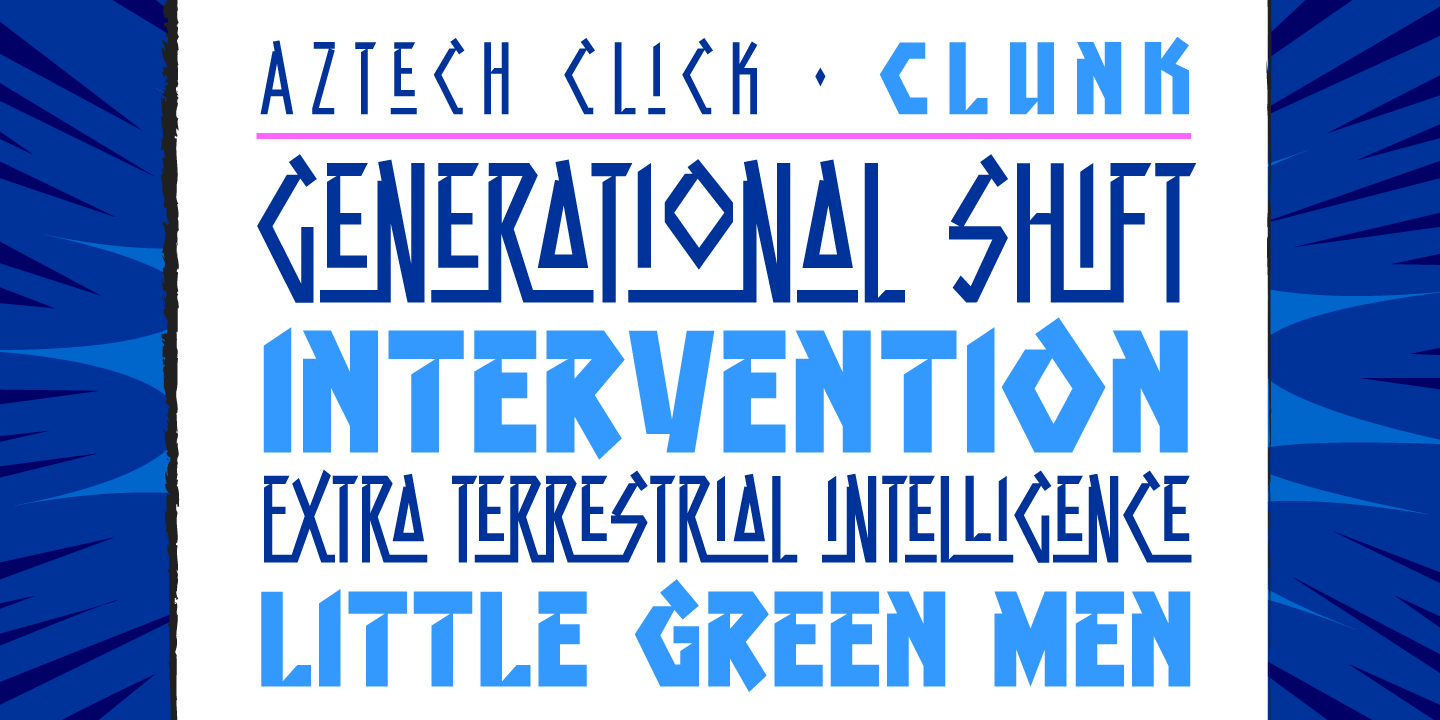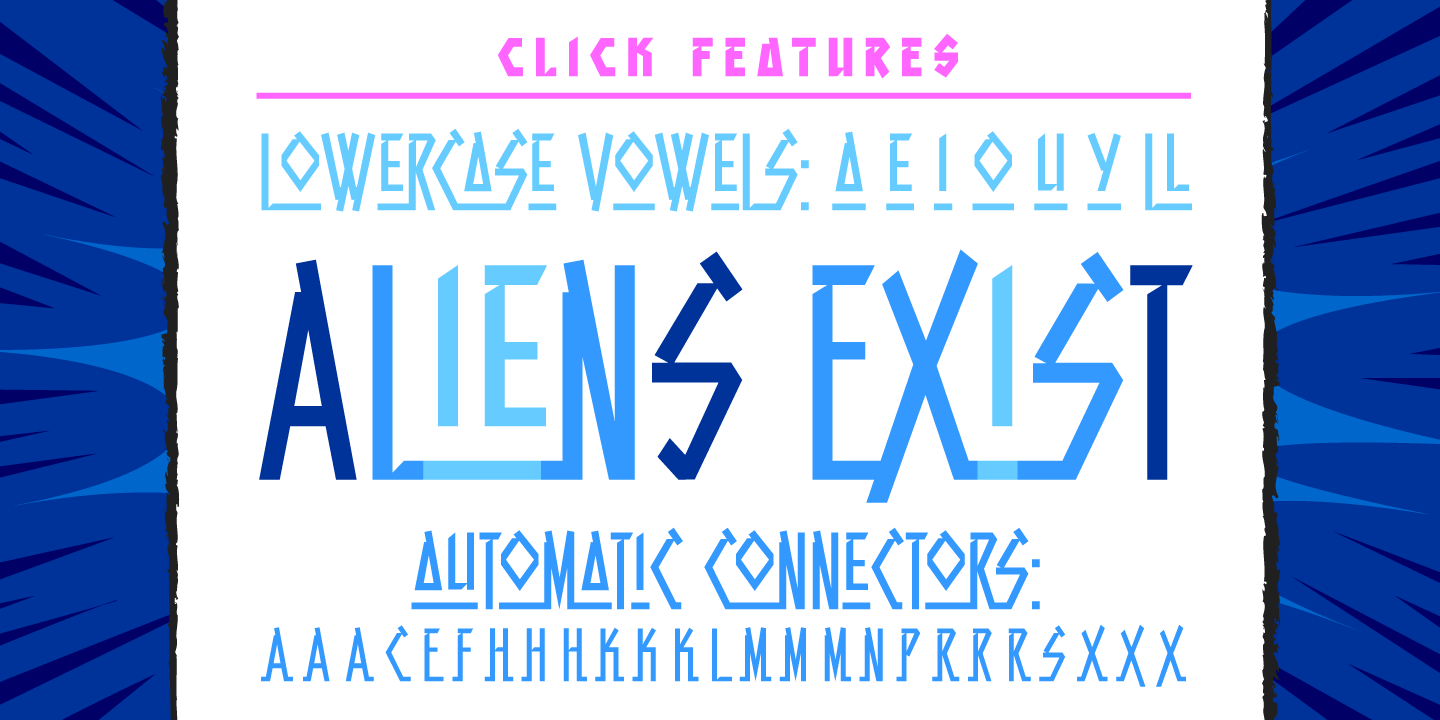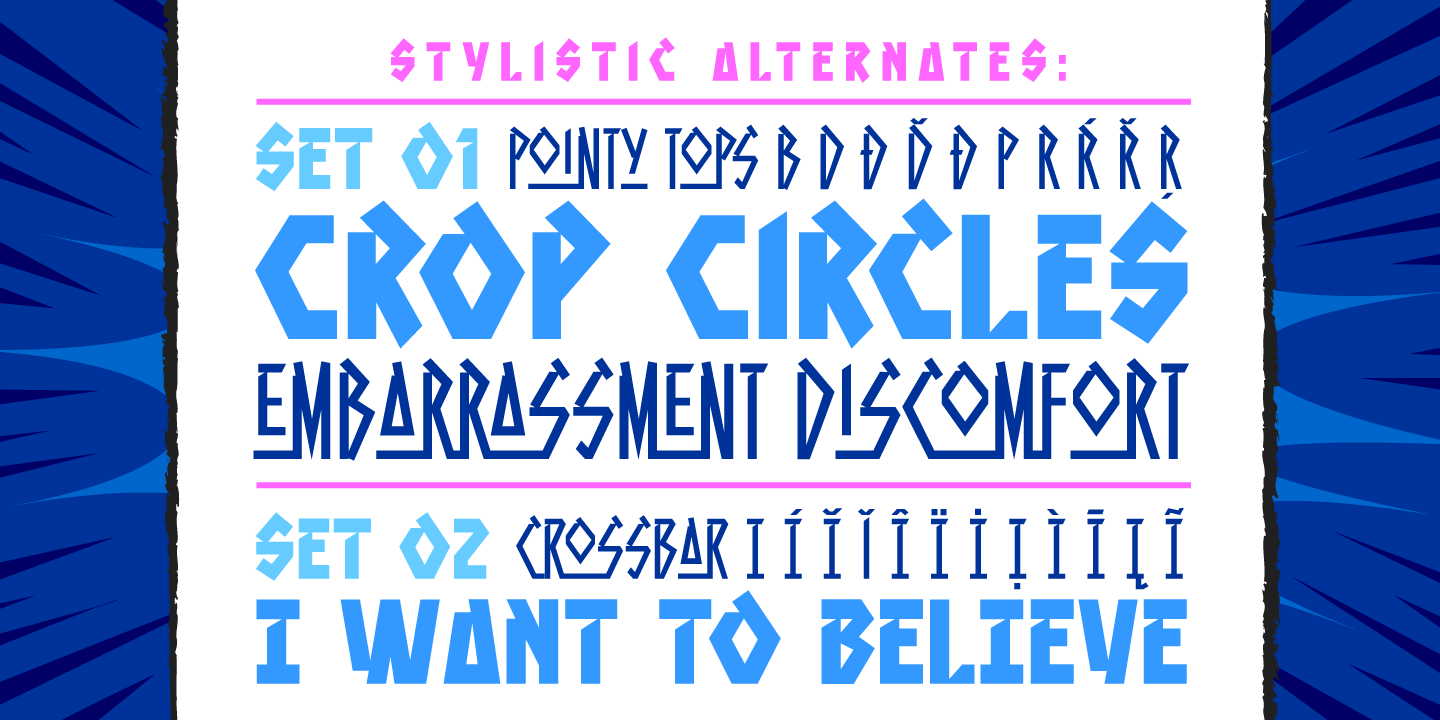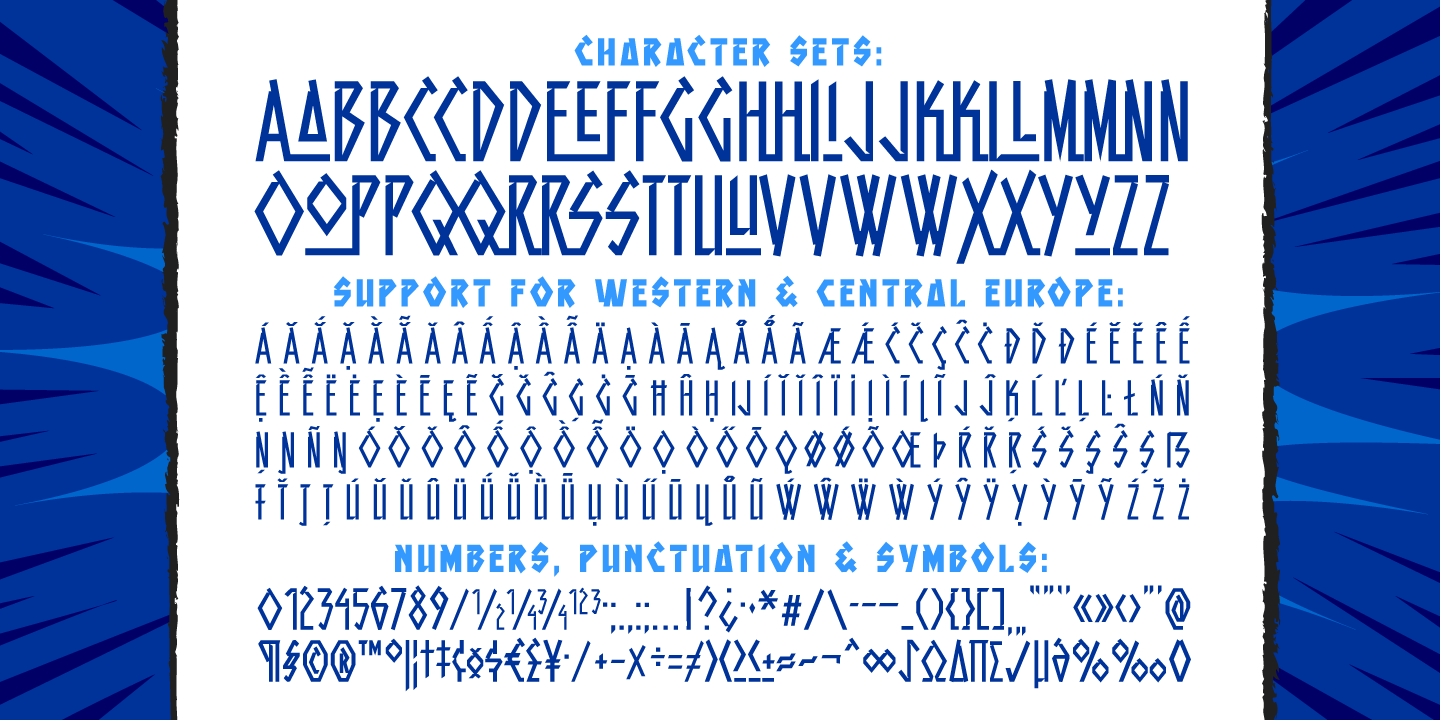
Aztech
Font Family by Comicraft Fonts
Was God an Ancient Astronaut? Are crop circles signposts for UFOs? Are we or are we not alone? Do you Want To Believe?
We have No Idea.
Nevertheless, we've put together a rather attractive little typeface -- by the name of Aztech -- which will undoubtedly add fuel to speculation vis-a-vis the existence (or non-existence) of Extra Terrestrial Intelligence.
Yes, in our ongoing quest to spread enlightenment and dispel anxiety throughout the universe, we've created a font —showcased in the pages of Marvel’s now-classic GENERATION X comic — which will allow you to enjoy the concept of Alien Intervention without the embarrassment and discomfort of being 'probed.' Tell your friends.